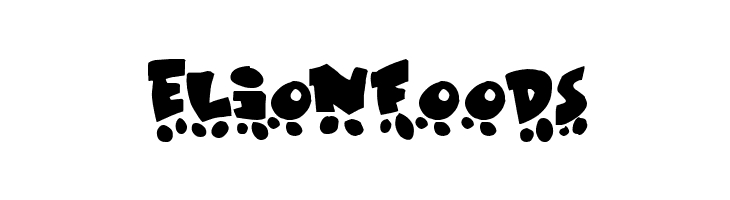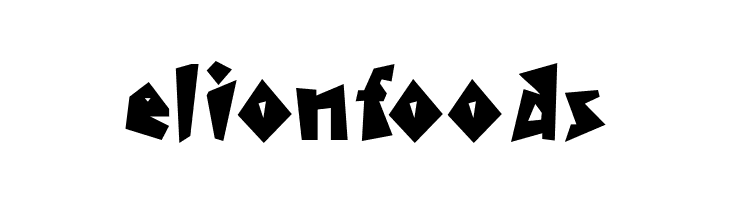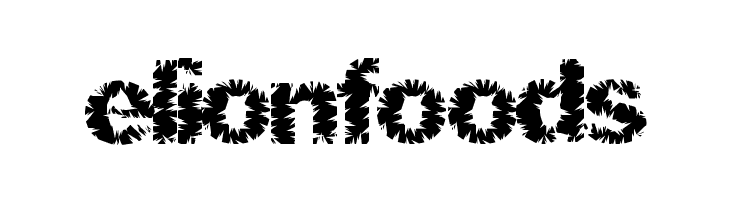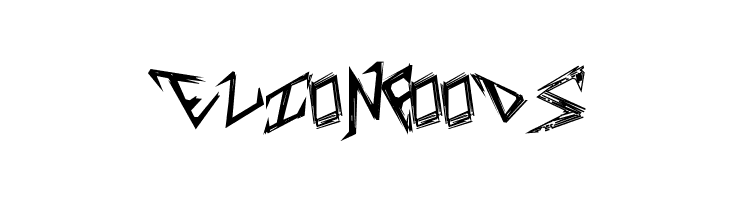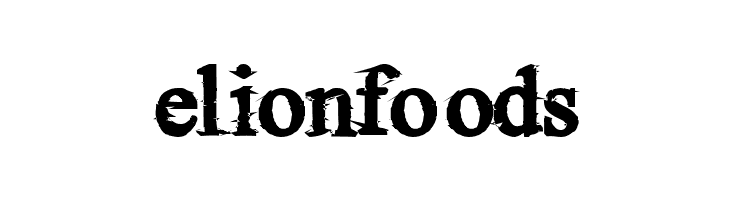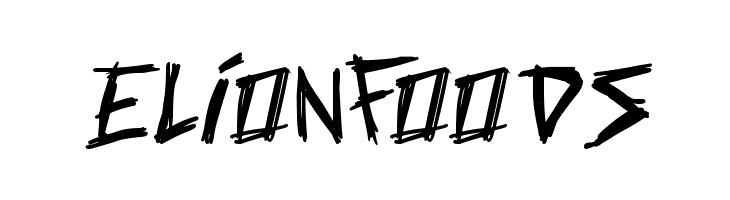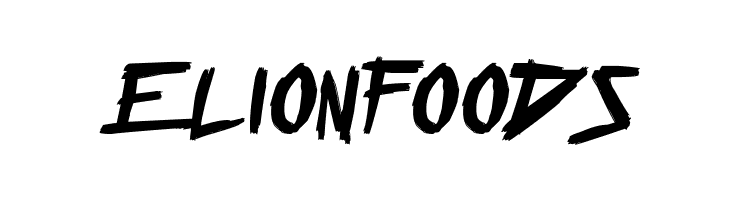
A bold, playful font with an edgy, graffiti-inspired style.
A bold, angular font with a dynamic, graffiti-inspired style.
A bold, distressed font with a shredded, chaotic appearance.
A bold, jagged font with sharp angles and an edgy, dynamic appearance.
A bold, distressed font with a grunge texture for an edgy, rebellious look.
An edgy, graffiti-inspired font with sharp angles and dynamic strokes.
A bold, distressed font with a grunge aesthetic and jagged edges.
A bold, jagged, hand-drawn font with an edgy and energetic style.
A bold, edgy, and italicized font with sharp, angular lines.